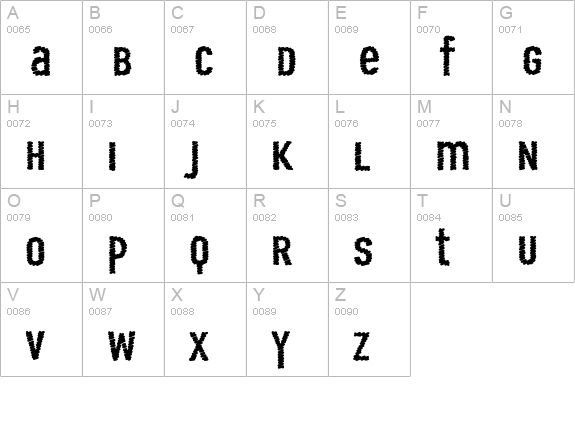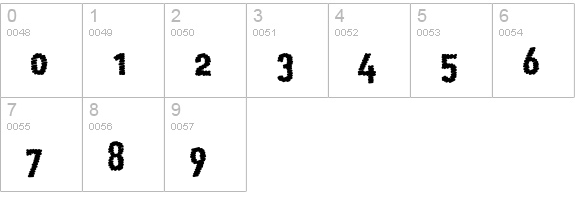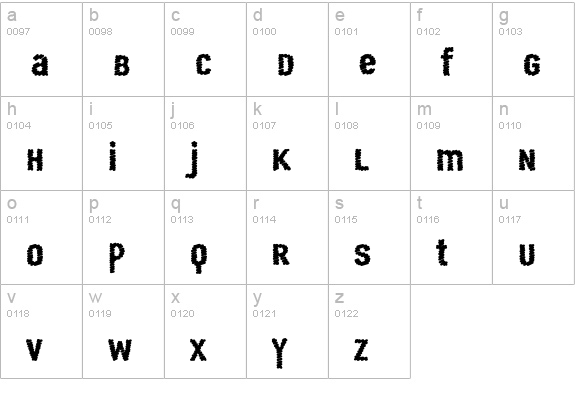
Introducing Scribble-United font, a unique and expressive typeface that will add a touch of creativity and playfulness to your designs. This font's unconventional and hand-drawn style captures the essence of a whimsical doodle, making it perfect for projects that need a hint of spontaneity and charm. Scribble-United font is not only visually captivating but also versatile. Its irregular strokes and imperfect lines create an organic feel that can be used to evoke a sense of authenticity and individuality in various design contexts. Whether you're designing a logo, creating eye-catching headlines, or crafting fun social media posts, this font is sure to make a memorable impact. What's even better is that Scribble-United font is absolutely free! Yes, you heard right. It is freely available to download at FontsMarket.com. We believe that everyone should have access to quality fonts without breaking the bank, and that's why we're thrilled to offer this gem of a typeface at no cost. Now, you can elevate your designs without spending a dime. So, why wait? Unleash your creativity and add a touch of whimsy to your projects with the Scribble-United font. Download it today at FontsMarket.com and let your imagination run wild.